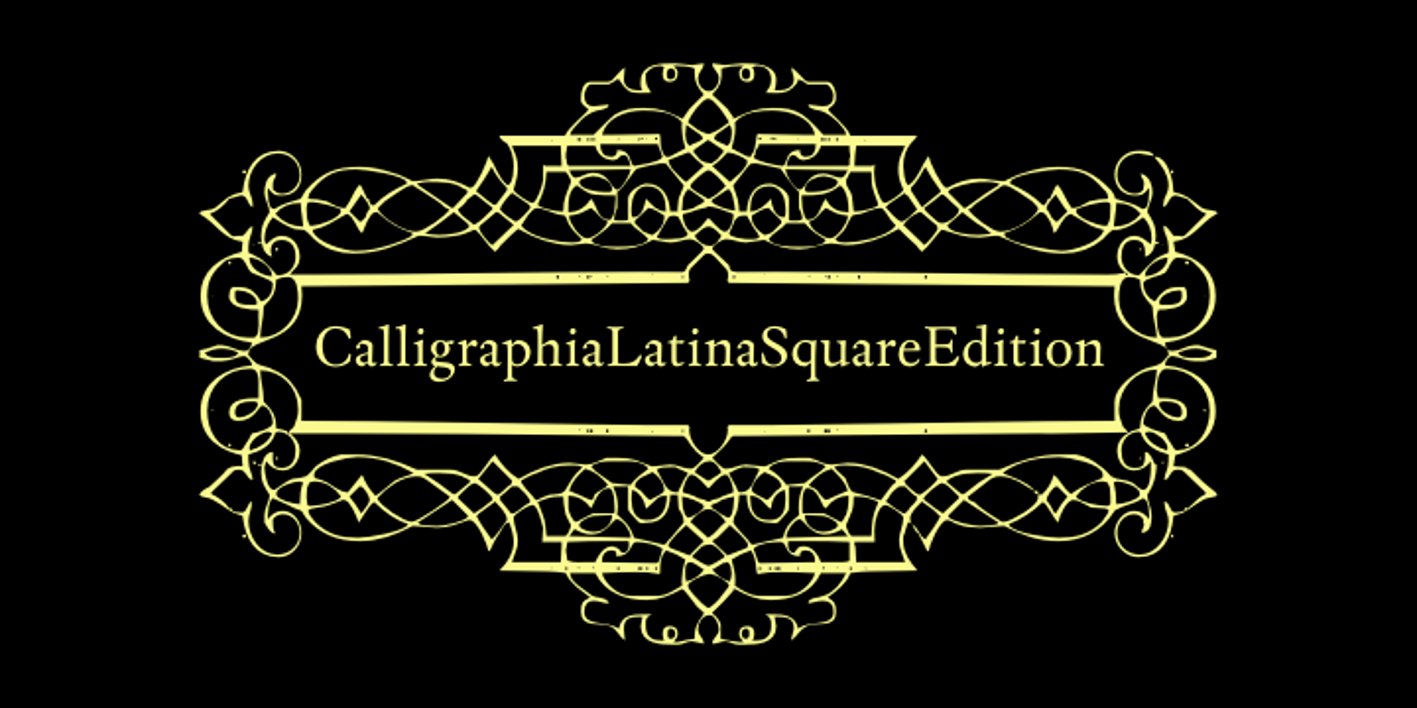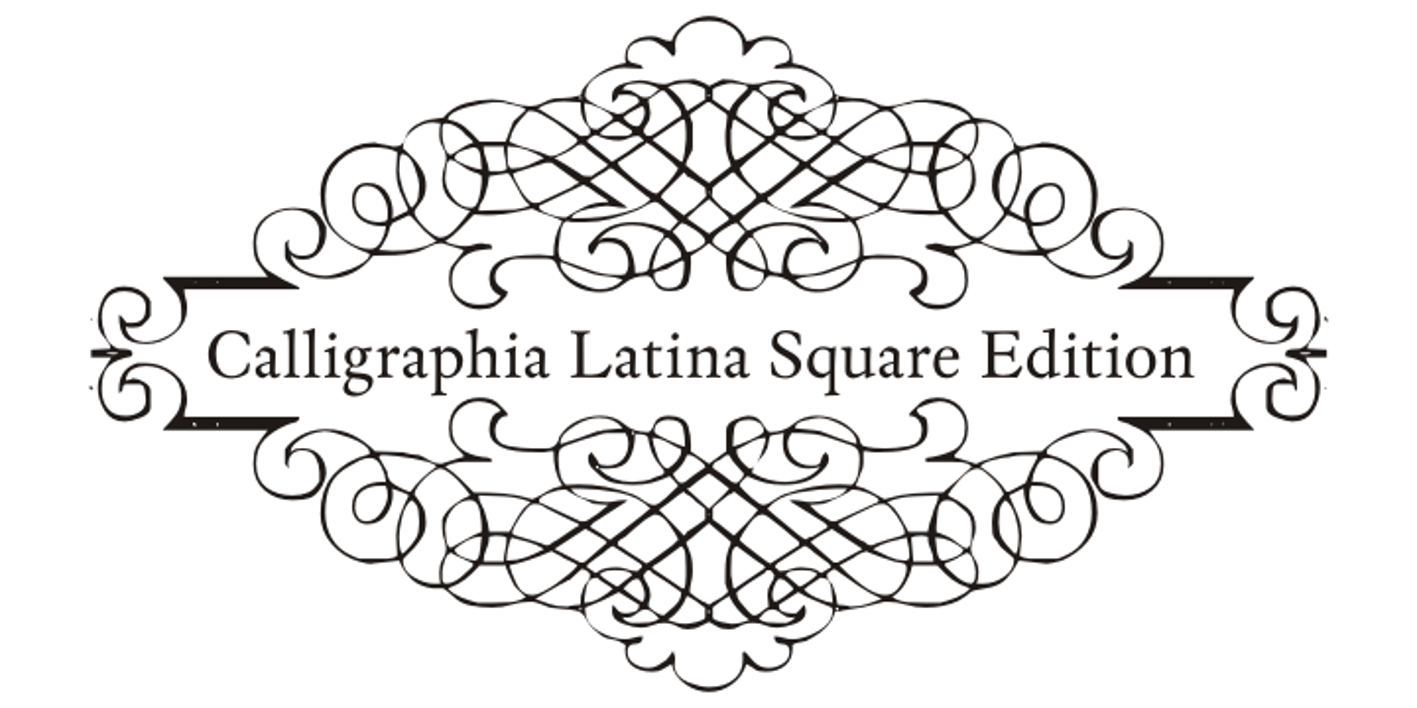
CalligraphiaLatinaSquareEdition Font
One of the most successful ornament fonts is CalligraphiaLatina. It is part of a trend that's been quite popular lately: messed-up calligraphy. CalligraphiaLatina is a worldwide best-seller from IntellectaDesign.. Besides the original CalligraphiaLatina, its family of fonts (13 different sets) represents a complete solution of intrincated fleurons and ornaments to use with several styles of artworks.